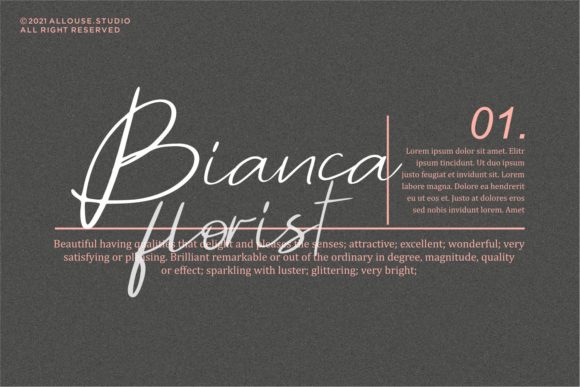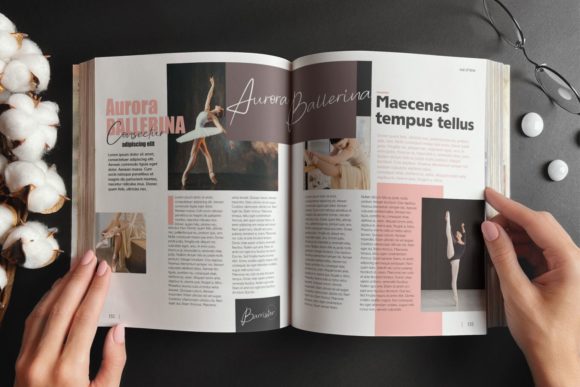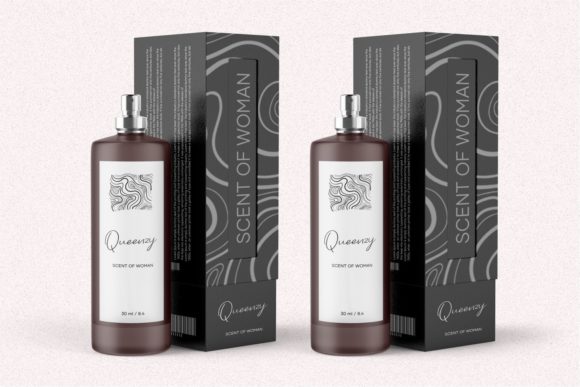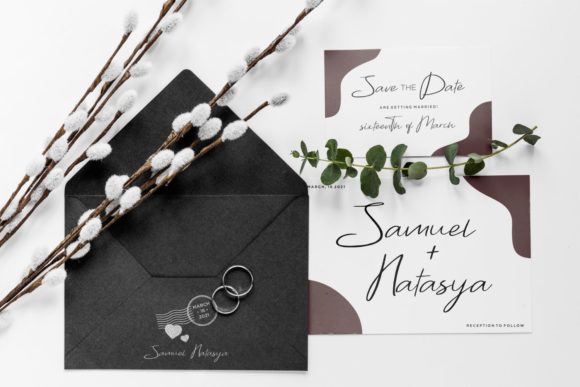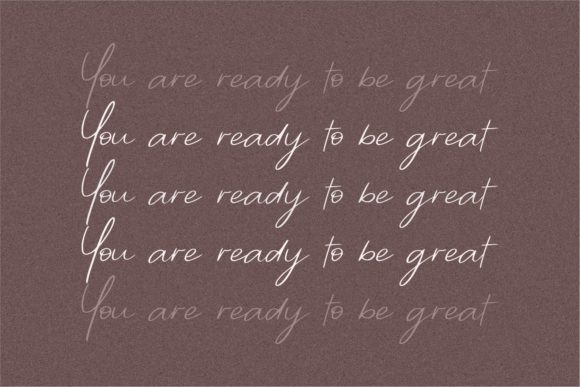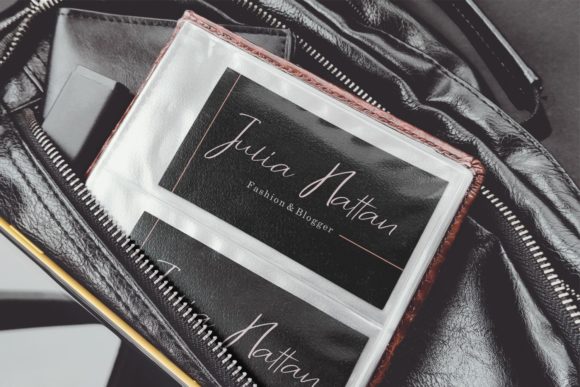
Barristar Font: Elevate Your Designs with Elegance and Sophistication
In the world of typography, fonts play a crucial role in conveying the tone and personality of a design. For designers and crafters looking to add a touch of elegance and sophistication to their projects, Barristar Font is an excellent choice. This stylish and delicate script font is designed to make a statement, and in this article, we’ll explore its features, benefits, and uses.
What is Barristar Font?
Barristar Font is a beautiful, hand-crafted script font that exudes a sense of refinement and luxury. Its clean, thin, and smooth vibe makes it perfect for a wide range of design applications, from branding and advertising to packaging and digital media. With its elegant lines and flowing curves, Barristar Font is sure to add a touch of sophistication to any design.
Key Features of Barristar Font
- Stylish and Delicate: Barristar Font boasts a stylish and delicate appearance that is sure to impress. Its thin lines and smooth curves create a sense of elegance and refinement.
- Clean and Legible: The font’s clean design ensures that it remains legible even at small sizes, making it perfect for body text and captions.
- Script Font: Barristar Font is a script font, which means it features connected letters that create a flowing, handwritten look.
- Versatile: This font is versatile and can be used for a wide range of design applications, from print to digital media.
Benefits of Using Barristar Font
So, why should designers and crafters choose Barristar Font for their projects? Here are just a few benefits:
- Adds Elegance and Sophistication: Barristar Font adds a touch of elegance and sophistication to any design, making it perfect for luxury brands and high-end products.
- Improves Readability: The font’s clean design and legibility ensure that text remains easy to read, even at small sizes.
- Enhances Creativity: With its unique and stylish appearance, Barristar Font can inspire creativity and help designers and crafters stand out from the crowd.
Uses of Barristar Font
Barristar Font is a versatile font that can be used for a wide range of design applications, including:
- Branding and Advertising: Use Barristar Font to create elegant and sophisticated brand identities and advertising campaigns.
- Packaging Design: Add a touch of luxury to your packaging designs with this beautiful script font.
- Digital Media: Use Barristar Font to create engaging and stylish digital content, such as social media graphics and blog posts.
- Stationery and Invitations: Create elegant and sophisticated stationery and invitations with Barristar Font.
Tips for Using Barristar Font
To get the most out of Barristar Font, here are a few tips:
- Use it Sparingly: Use Barristar Font sparingly to add emphasis and create visual interest.
- Pair it with Other Fonts: Pair Barristar Font with other fonts to create a unique and stylish typography combination.
In conclusion, Barristar Font is a stylish and delicate script font that is sure to elevate your designs with elegance and sophistication. With its clean, thin, and smooth vibe, this font is perfect for a wide range of design applications, from branding and advertising to packaging and digital media. Whether you’re a designer or crafter, Barristar Font is an excellent choice for anyone looking to add a touch of luxury to their projects.